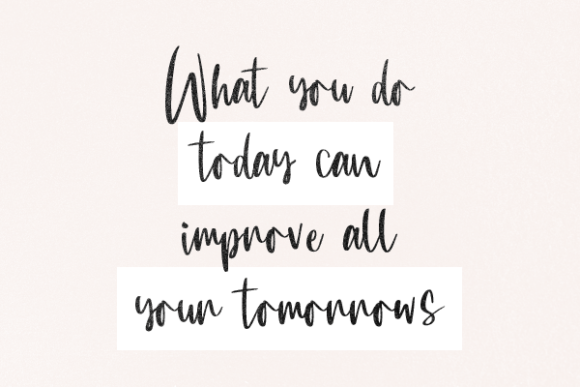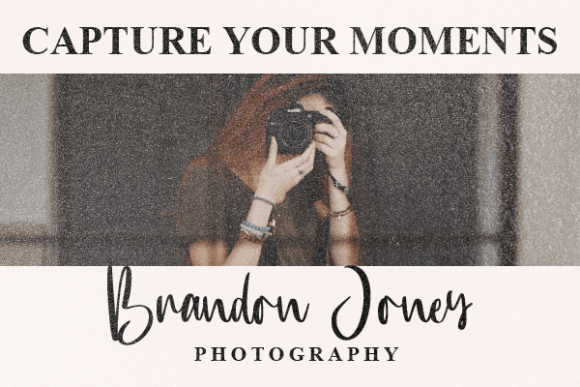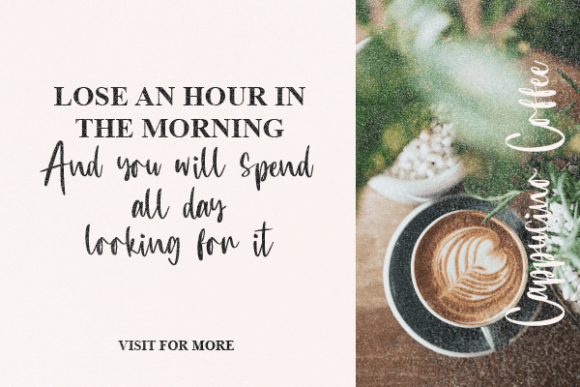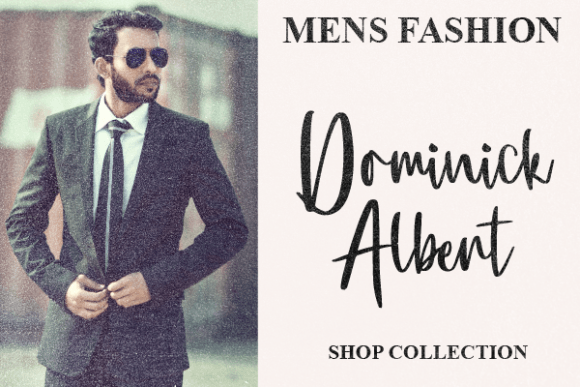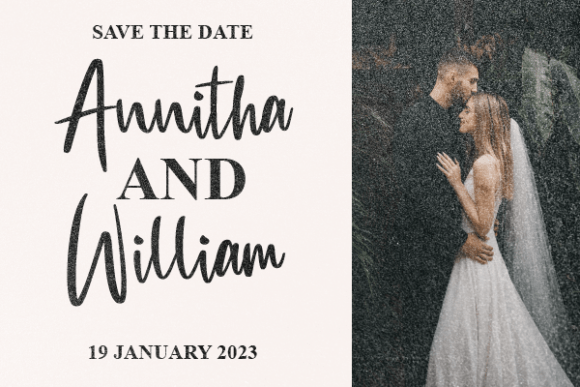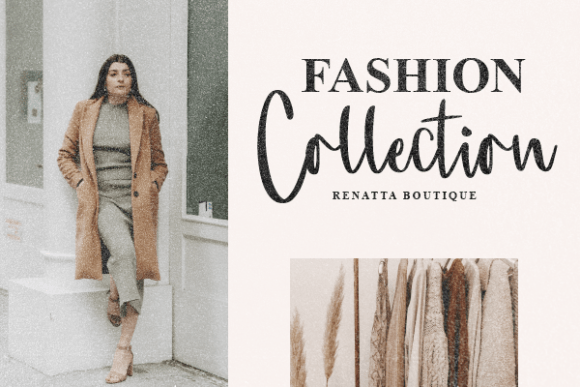
Discover the Charm of Graham Metcalfe Font: A Timeless Handwritten Treasure
Are you a designer or crafter looking for a font that adds a touch of elegance and personality to your creations? Look no further than the Graham Metcalfe font, a lovely and timeless handwritten font that is sure to make your designs come alive. In this article, we’ll explore the unique features of the Graham Metcalfe font and why it’s the perfect choice for creating eye-catching logos, branding, and quotes.
The Unique Touch of Graham Metcalfe Font
One of the standout features of the Graham Metcalfe font is its unique and beautiful touch. Every letter has been carefully crafted to have its own distinct character, making it a true one-of-a-kind font. The handwriting style is elegant and fluid, with a subtle flair that adds a touch of sophistication to any design. Whether you’re creating a logo, branding materials, or quotes, the Graham Metcalfe font is sure to add a level of personality and charm that sets your design apart.
The Graham Metcalfe font is a versatile font that is perfect for a wide range of design applications. For designers, it’s an excellent choice for creating logos, branding materials, and marketing collateral that needs to make a lasting impression. For crafters, it’s a great font to use for handmade cards, gift tags, and other paper crafts. The font’s elegant and timeless style makes it suitable for a variety of design themes, from modern and contemporary to vintage and rustic.
Why Choose Graham Metcalfe Font?
So why choose the Graham Metcalfe font over other fonts? Here are just a few reasons why it’s a top choice for designers and crafters:
- Unique and distinctive: The Graham Metcalfe font has a unique and distinctive style that sets it apart from other fonts.
- Elegant and timeless: The font’s elegant and timeless style makes it suitable for a wide range of design applications.
- Handwritten with love: The font has been carefully crafted with a personal touch, making it feel like a handwritten font.
- Easy to read: Despite its elegant style, the font is easy to read, making it perfect for body text and quotes.
Tips for Using Graham Metcalfe Font
Here are a few tips for getting the most out of the Graham Metcalfe font:
- Use it for headlines and titles: The font’s elegant style makes it perfect for headlines and titles.
- Pair it with a simple font: Pair the Graham Metcalfe font with a simple font for body text to create a striking contrast.
- Experiment with colors and textures: The font’s elegant style lends itself well to a variety of colors and textures.
In conclusion, the Graham Metcalfe font is a timeless handwritten treasure that is sure to add a touch of elegance and personality to your designs. With its unique and beautiful touch, elegant style, and versatility, it’s the perfect choice for designers and crafters looking to create eye-catching logos, branding, and quotes. Whether you’re a seasoned designer or a crafty DIY enthusiast, the Graham Metcalfe font is sure to become a favorite in your font collection.
Get Creative with Graham Metcalfe Font
- Create eye-catching logos and branding materials
- Design beautiful quotes and social media graphics
- Make handmade cards and gift tags
- Develop stunning marketing collateral
Whatever your design goals, the Graham Metcalfe font is the perfect choice. So go ahead, get creative, and let the Graham Metcalfe font bring your designs to life!